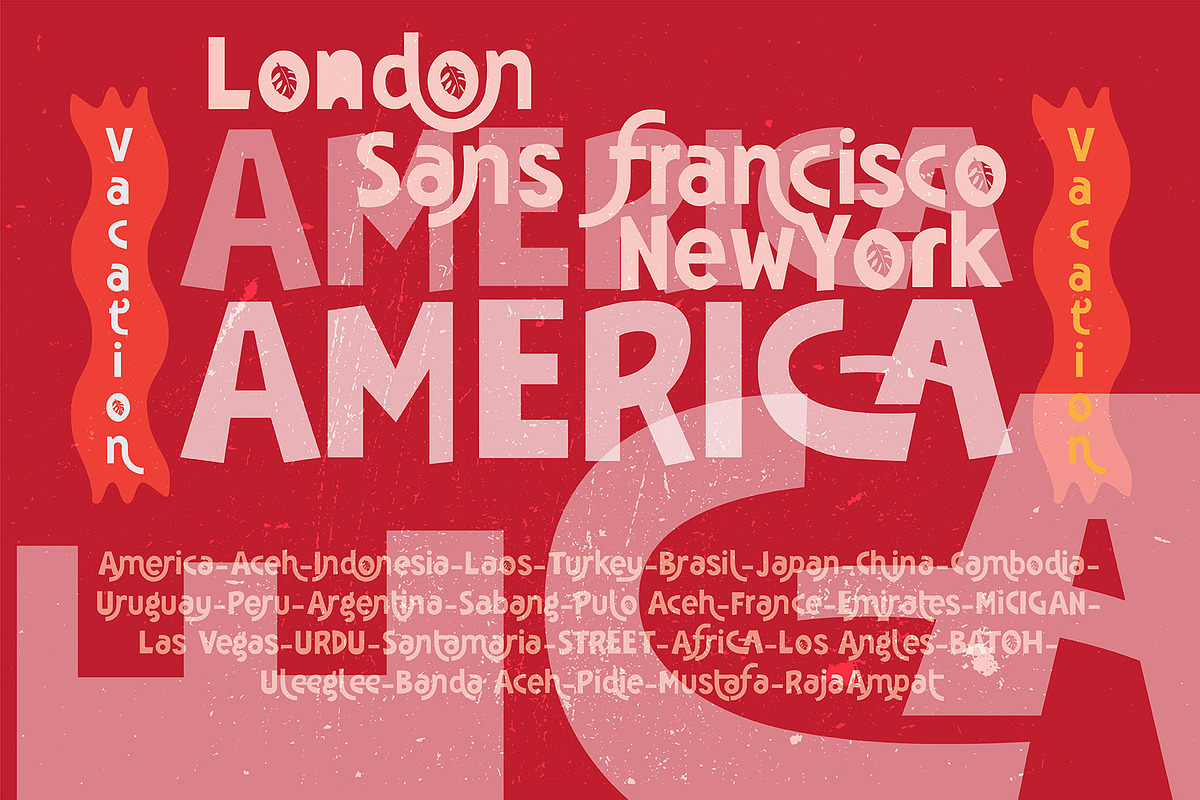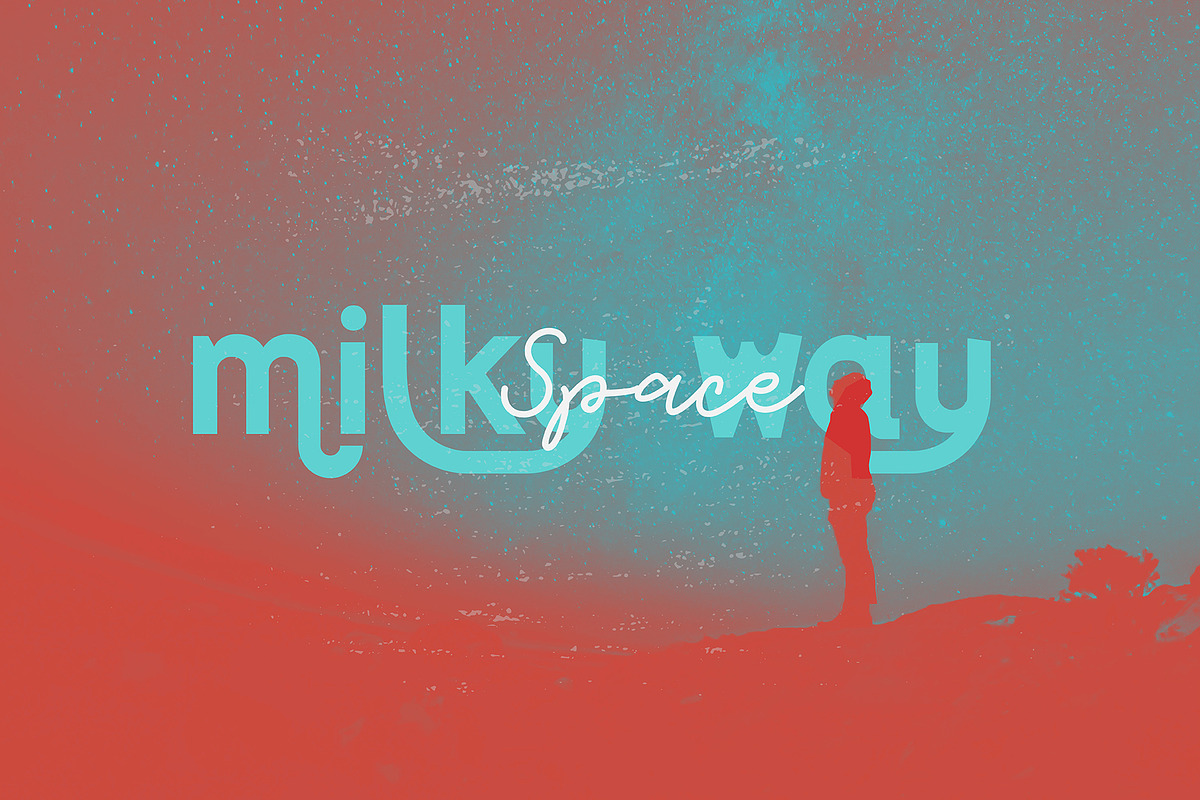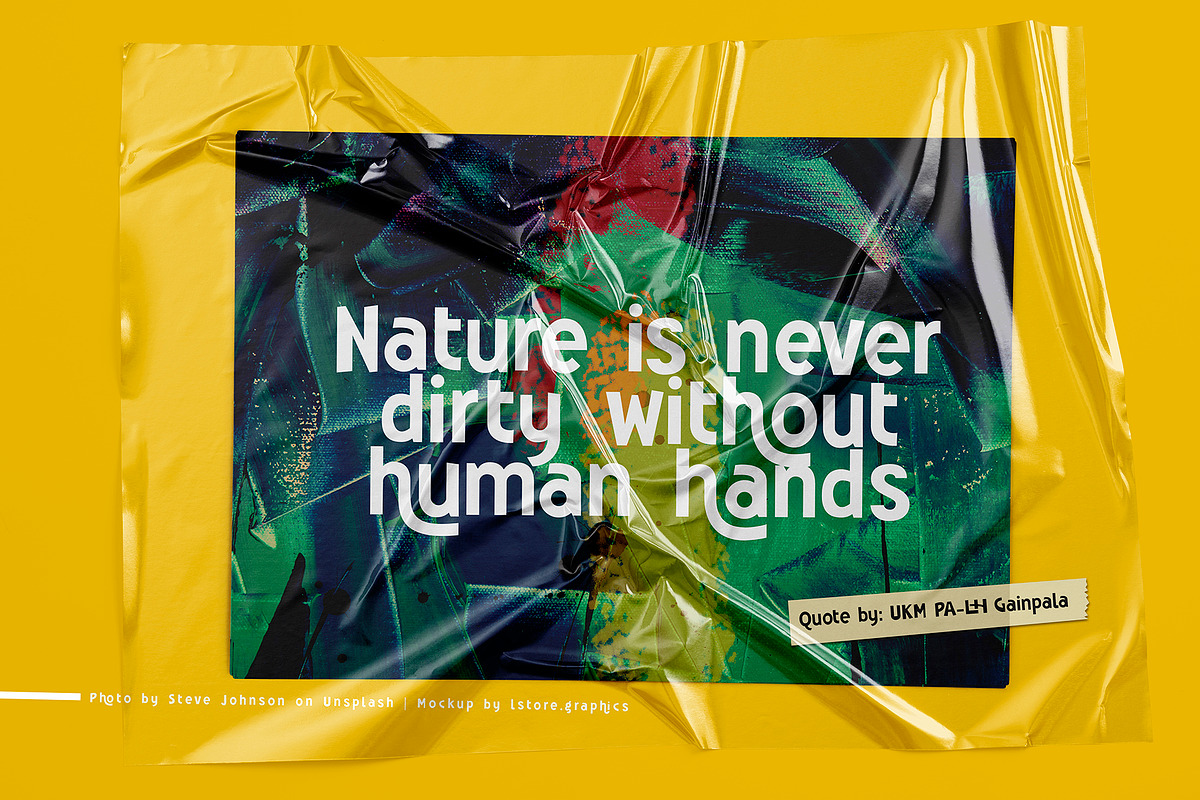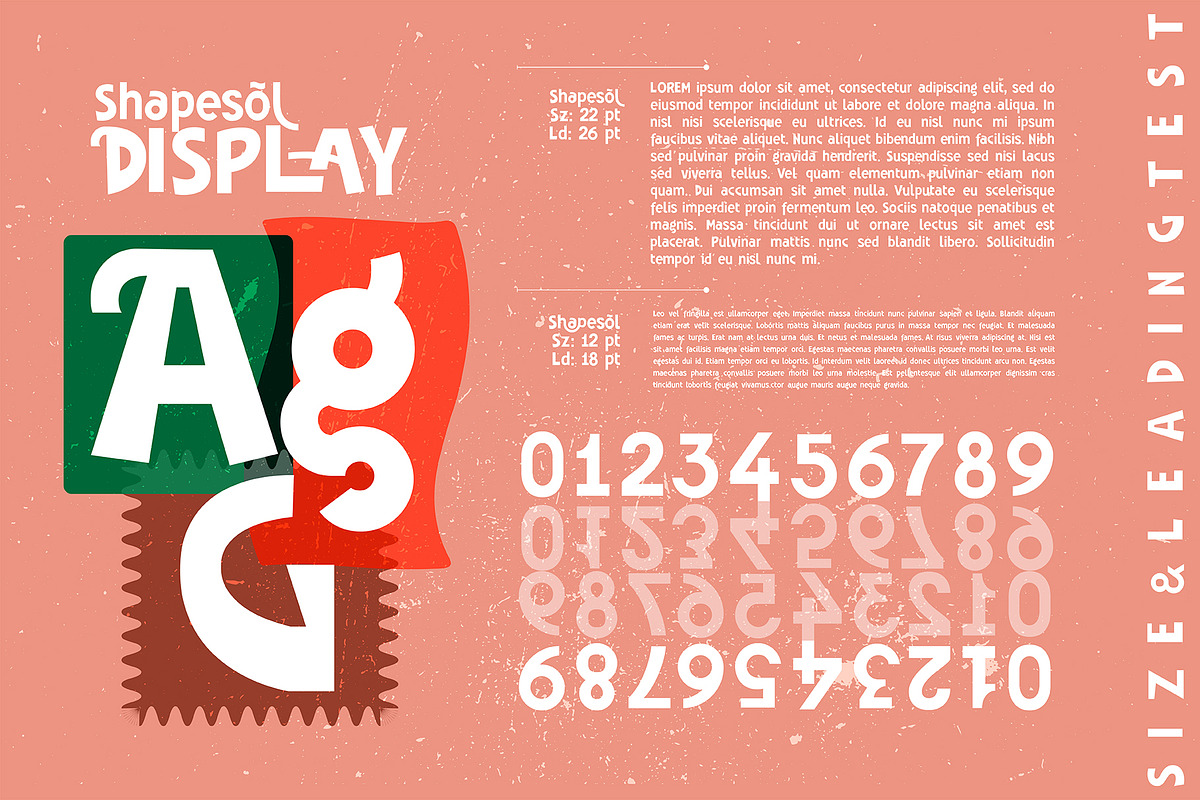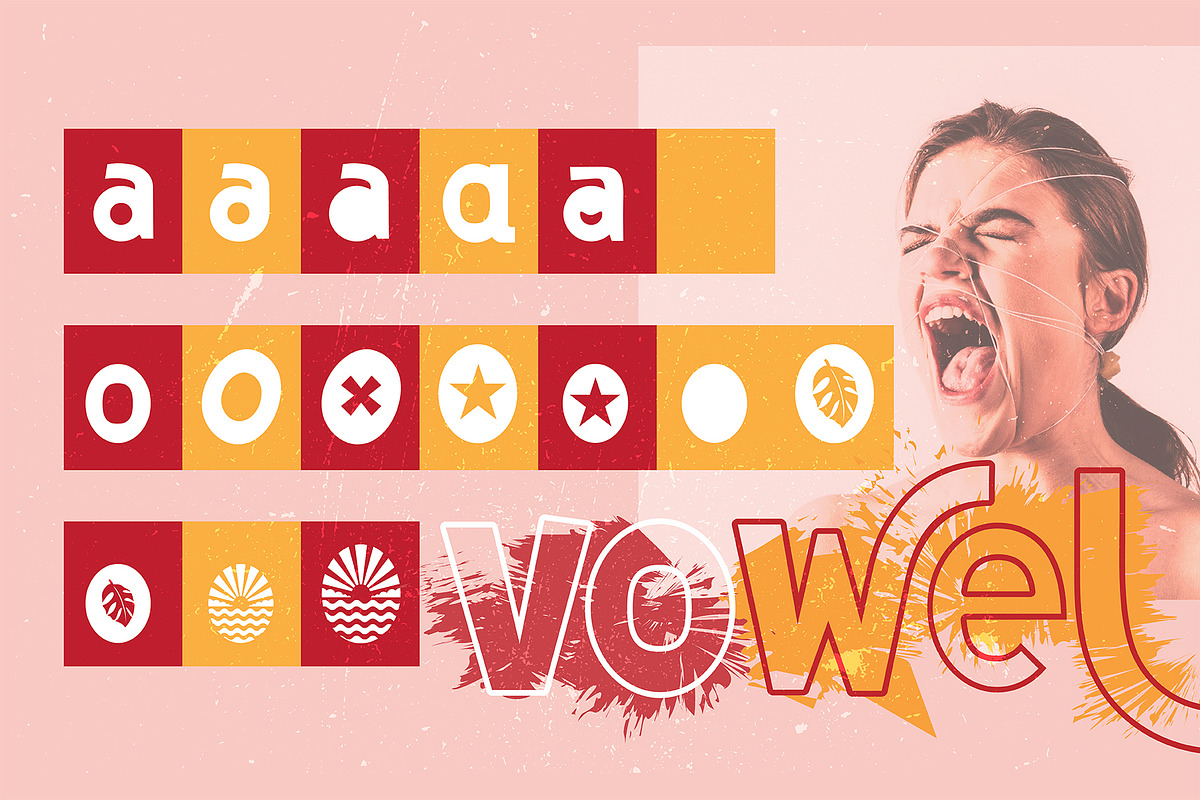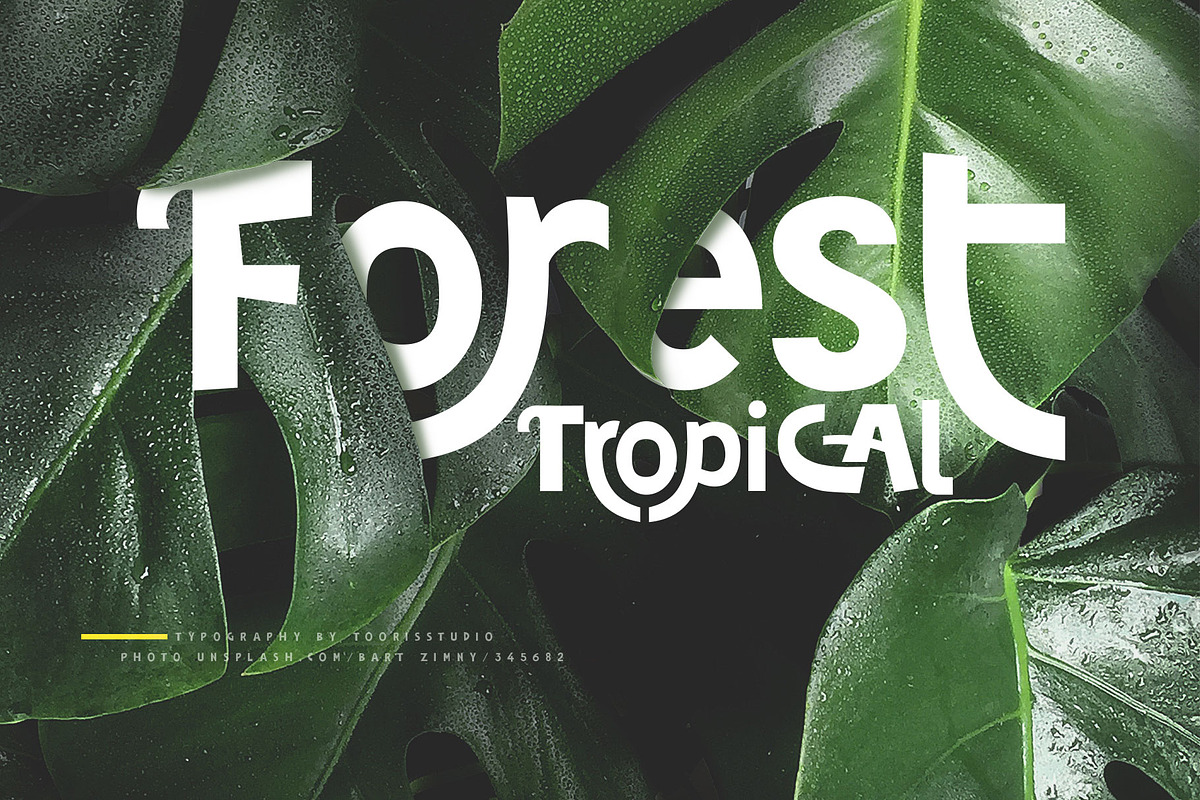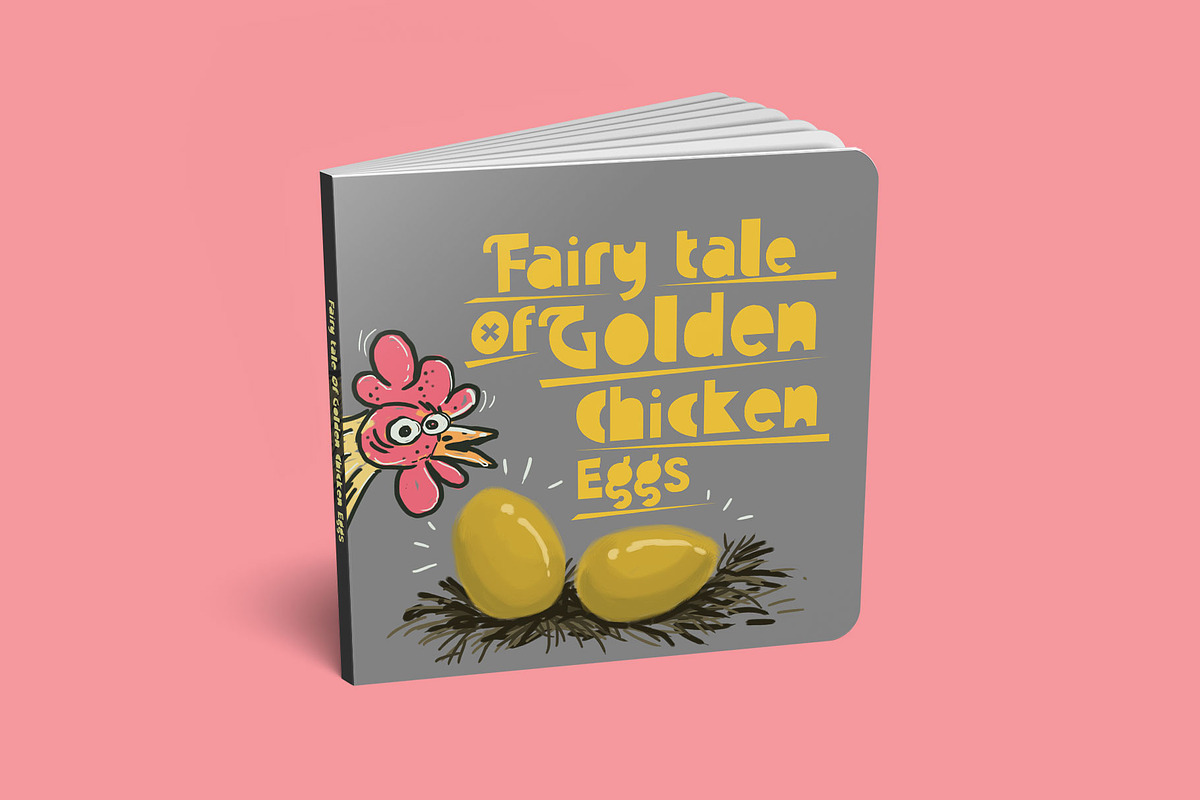
Shapesol Typeface
Like to use fonts to quote colored and patterned Fairy Tale? Look for Shapesoul, a fairytale-style font that's perfect for making quotes and for past and present fairy tales. Of course for display products that you want to display in full color.
-Shapesol: Standard Glyph, Alternates glyph, stylistic glyph, numbers & punctuation.
-Shapesol Outline: Alternative Uppercase, numbers & punctuation.
-Monaline Script: Lowercase letters, numbers & punctuation.
The thickness of the strokes is almost the same but random in each font, so you don't need to spend a lot of time to really see it!
Shapesol prints letters that are not the same but are perfect for contrasting each beautiful quote and are very easy to read!
This is a fun new duo, perfect for making quotes, logos, or for adding a touch of semibold style to any project!
While the Monaline Script font usually takes several sizes to make it look right, the Shapesol duo has an uneven stroke thickness for the second font, so you get uniqueness in each font of the same size and you're done!
Shapesol Typeface by Tooris fits naturally into Branding, posters, packaging, typography.